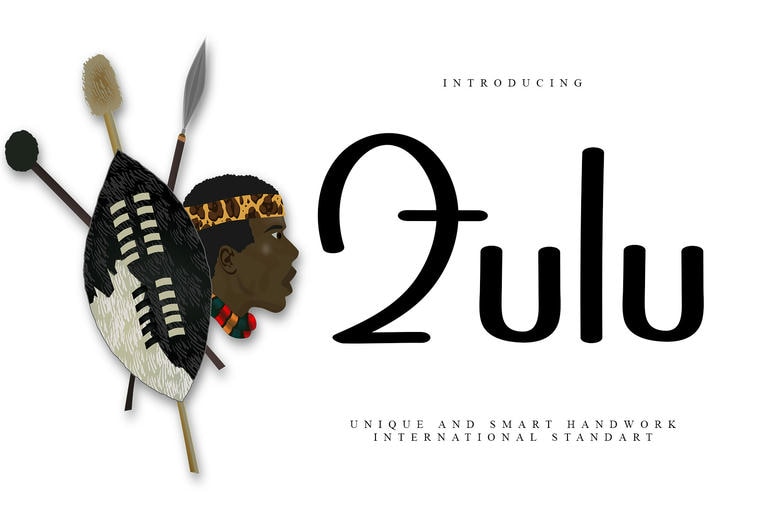
Zulu Font
Zulu is an exclusive and stylish font created by some special design harbinger just in favor of you. It is a professional-made font, which is ideal in your projects. Such a font is quite appropriate to apply in your work projects all greeting cards concerning the wedding invitation card, birthday collection, all kinds of parties.
The same font can also be well used in your creative ideas in school assignment or other good events. To improve the appearance, apply this font with your creative ideas to happen. It is a highly tuned font and can be used with any glyphs without the help of any extra application.
Zulu Sans Serif Font